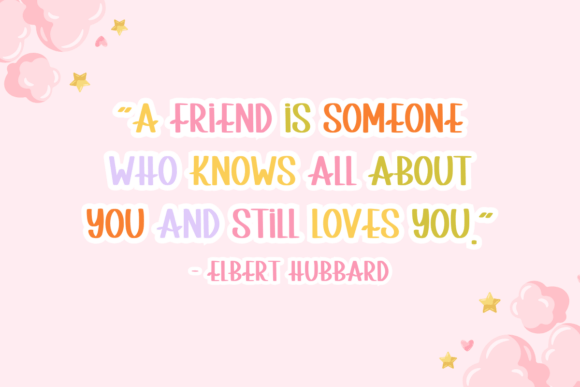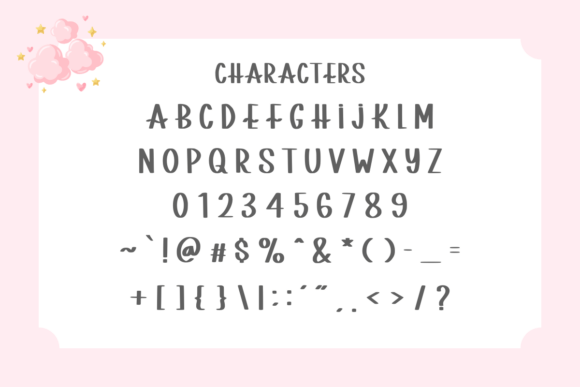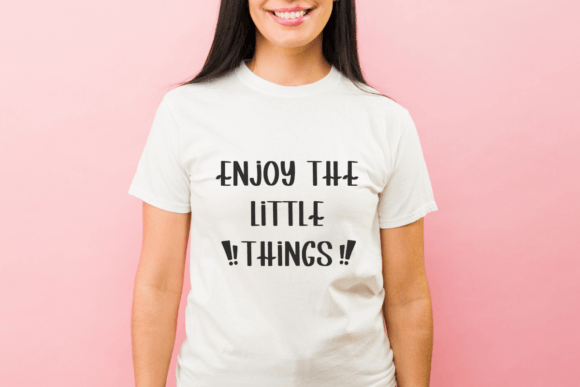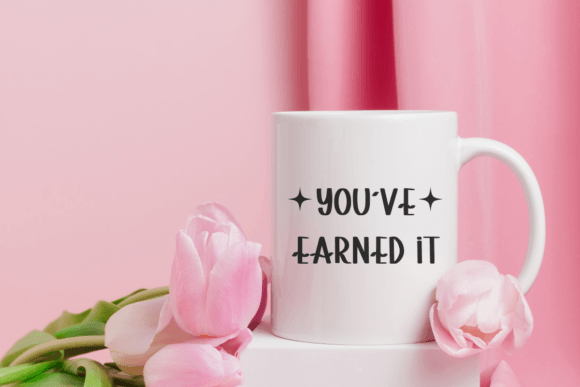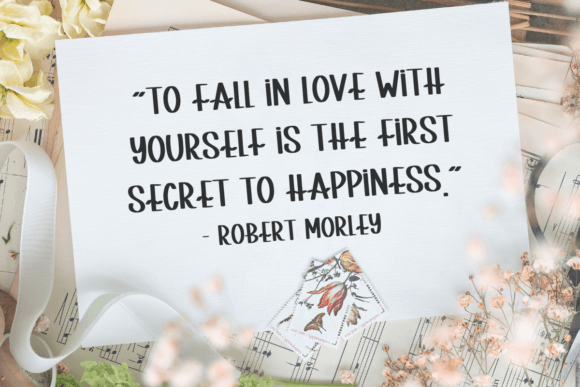
Introduction to Poster Lay Font
Have you ever found yourself rummaging through your sketchbook, searching for the perfect font to bring your creative project to life? The perfect font can make all the difference between a mediocre design and a masterpiece. For those seeking a high-quality, free download to elevate their designs, look no further than the Poster Lay Font. This charming handwritten sans serif font is the perfect addition to any design resource, adding a touch of whimsy and charm to your creations.
Whether you’re crafting a set of invitations for a special occasion or designing a series of educational materials, Poster Lay Font is an excellent choice. Its versatility and playful aesthetic make it an ideal font for a variety of creative projects, from decorating planners and interior KDPs to creating beautiful journals and memos. With a transparent background, this font can be easily layered and customized to fit your unique design style.
As a valuable resource for designers, Poster Lay Font offers endless possibilities for creative expression. Its endearing and playful nature makes it a standout among other design fonts, and its free download status makes it accessible to designers of all levels.
Key Features of Poster Lay Font
- Unique Poster Lay Font style with a transparent background, perfect for adding text overlays.
- Designed to be highly scalable, with a resolution of 300 DPI for crisp and clear text at any size.
Honest Review: Poster Lay Font
As a designer, I’m always on the lookout for high-quality design resources that can elevate my creative projects. Recently, I had the chance to work with the Poster Lay Font, and I’m excited to share my honest review.
- ✨ Unique and stylish design: The Poster Lay Font has a distinct aesthetic that adds a touch of sophistication to any design project.
- ✨ Easy to use: The font is incredibly easy to use, even for designers who are new to working with custom fonts.
- ⚠️ Limited customization options: While the font is easy to use, there are limited customization options available, which may limit its versatility.
- ⚠️ Not ideal for small text: The Poster Lay Font is best used for larger text sizes, as it can become difficult to read when used for smaller text.
Overall, I’m impressed with the Poster Lay Font. Its unique design and ease of use make it an excellent addition to any designer’s toolkit. However, its limitations should be taken into consideration when deciding whether to use it for a particular project. As a free design resource with a transparent background, it’s an excellent choice for designers looking to add a touch of style to their creative projects.
Tips for Getting the Most Out of Poster Lay Font
To get the most out of Poster Lay Font, use it in conjunction with a transparent background to create a visually appealing design. You can also experiment with different font sizes and styles to add emphasis to your text.
Common Use Cases for Poster Lay Font
Poster Lay Font is commonly used for creative projects such as posters, flyers, and social media graphics. Its high-quality design and transparent background make it perfect for various design applications.